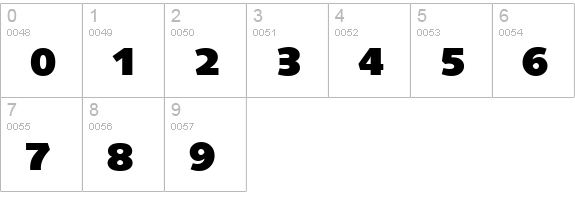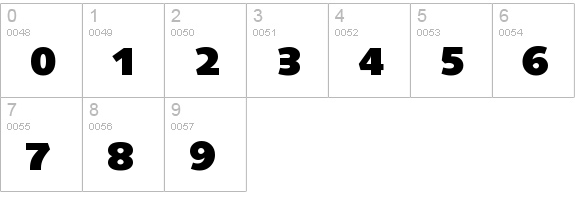
SaxonySerial-Heavy-Regular is a heavy, high-impact variant in the SaxonySerial typeface family \xE2\x80\x94 well suited to high-impact headlines, posters, and display advertising.
SaxonySerial-Heavy-Regular is a stylish and bold font that commands attention with its strong and prominent letterforms. This versatile typeface is perfect for creating impactful headlines, posters, logos, and more. The thick strokes and sharp angles of SaxonySerial-Heavy-Regular exude a sense of confidence and modernity, making it a great choice for any design project that requires a bold statement. What's even better is that SaxonySerial-Heavy-Regular is available for free download at FontsMarket.com. This means you can easily access this high-quality font without any cost, making it a valuable addition to your font collection. Whether you're a designer looking to add a powerful touch to your projects or a creative individual seeking a striking font for personal use, SaxonySerial-Heavy-Regular is sure to impress with its bold and impactful design. Download it today and elevate your designs with this exceptional typeface.